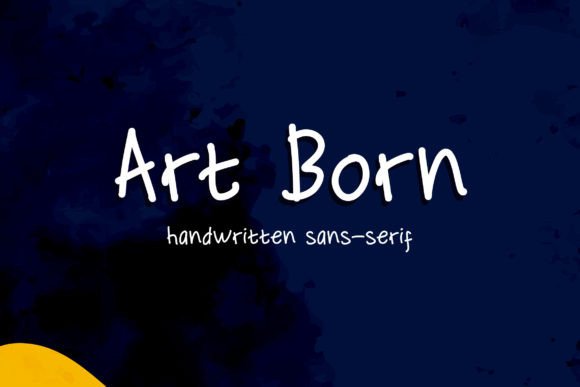
The Art Born Font: A Designer’s New Best Friend
I’ll never forget the time I was working on a children’s book project, and I just couldn’t find the right font to bring the story to life. The client wanted something playful, yet elegant, and I was on the verge of pulling my hair out. That’s when I stumbled upon the Art Born font, and let me tell you, it was love at first sight! 💕
As a designer, I’ve worked with countless fonts over the years, but there’s something special about Art Born. It’s a handwritten font that can be used in any work, from quotes and music covers to children’s books, posters, advertisements, social media content, logos, and more. In this article, I’ll share my honest review of Art Born, provide a practical guide on how to use it, and explore similar fonts and alternatives.
Honest Review: What I Love and What I Don’t
The Good ✨
- 💖 Art Born has a unique, personal touch that adds warmth to any design project.
- ✅ The font is highly versatile and can be used for a wide range of applications.
- 🎨 The handwritten style is perfect for creating visually appealing quotes, posters, and social media graphics.
- 🔍 The font comes with a range of OpenType features, glyphs, and stylistic alternates, making it easy to customize.
The Not-So-Good 🤔
- ⚠️ Some characters may appear a bit cramped or uneven, which can be adjusted with kerning and tracking.
- 🤔 Limited availability of certain special characters or diacritical marks.
The Story Behind Art Born
Art Born was designed with the intention of creating a font that feels personal, approachable, and creative. The designer aimed to craft a font that would allow users to add a touch of warmth and personality to their designs. While the exact story behind Art Born might be unknown, it’s clear that the font has been carefully crafted to meet the needs of designers, crafters, and creative hobbyists.
Q: What is the Art Born font best used for?
A: Art Born is a versatile font that can be used for a wide range of applications, including quotes, music covers, children’s books, posters, advertisements, social media content, logos, and more.